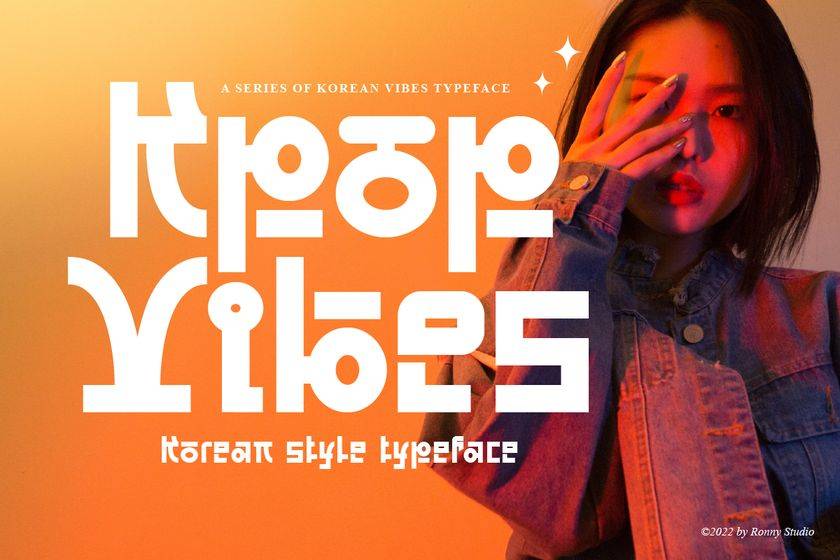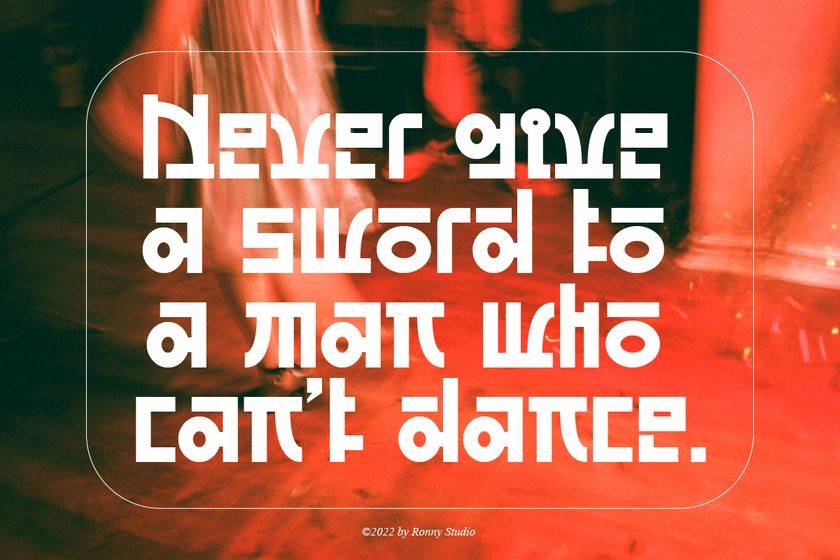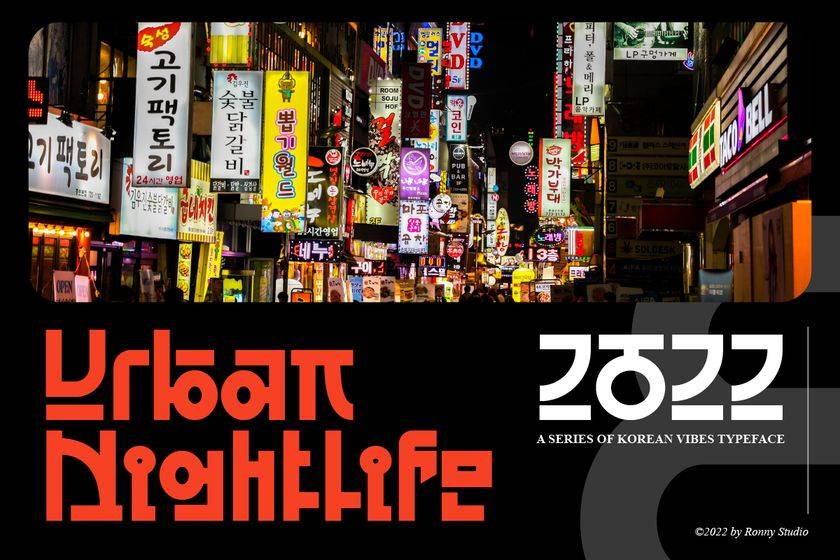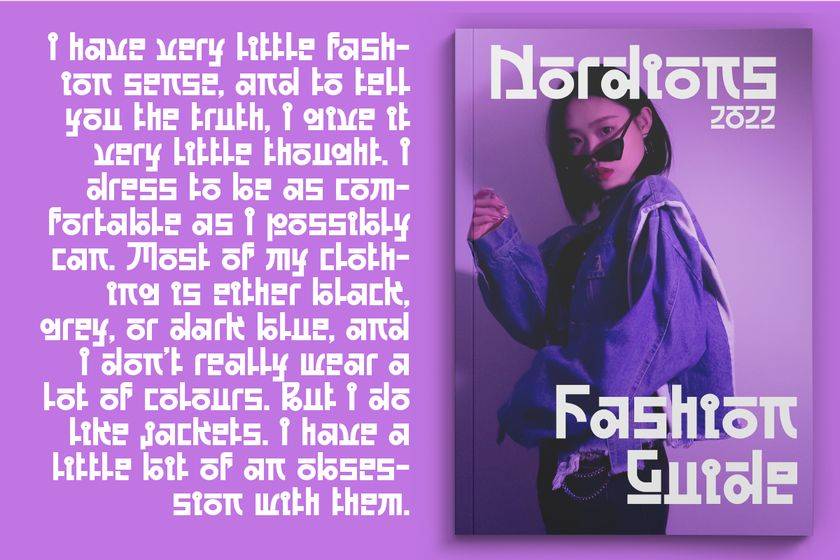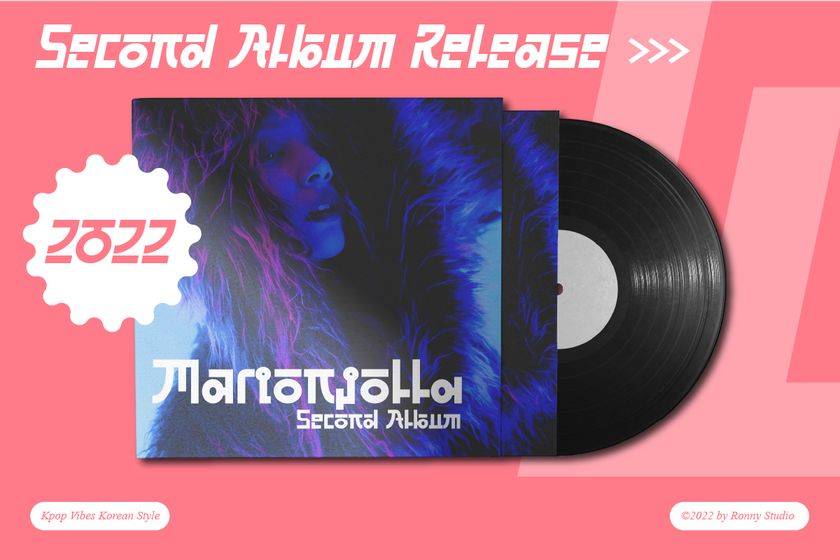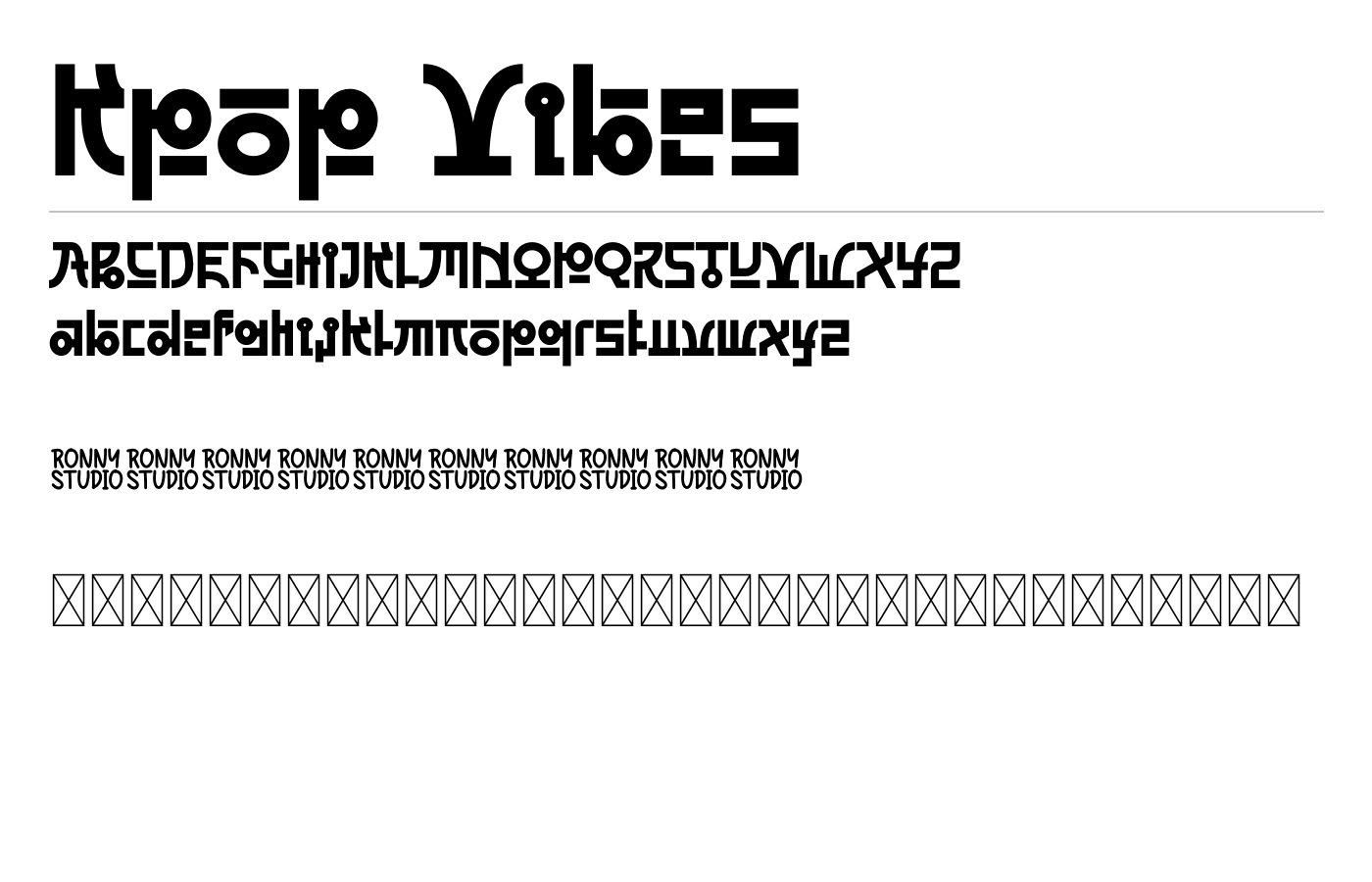
Kpop Vibes is a bold, geometric sans serif font with a futuristic and playful personality, characterized by its blocky shapes and creative, almost robotic letterforms. Its unique design features tightly spaced characters with an artistic flair, making it ideal for eye-catching logos, posters, and branding that aim to convey modernity and energetic style, especially in entertainment or youth-focused projects. This font stands out by combining a stylized, tech-inspired aesthetic with a lively, upbeat vibe.
Kpop Vibes Font
About Kpop Vibes Font